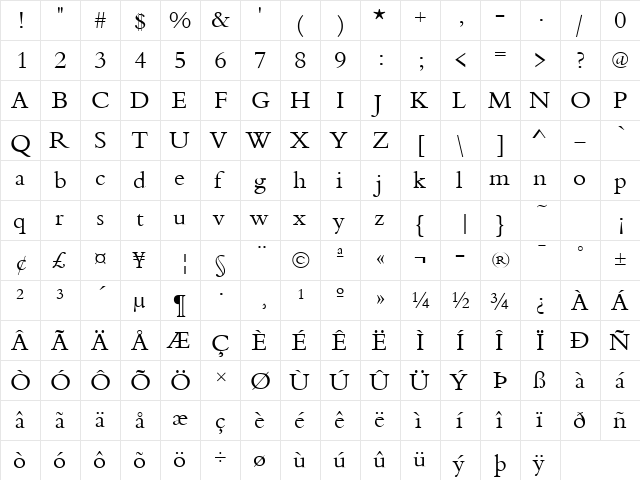
Bergamo Regular
Design Context for Bergamo Typeface
Bergamo takes a measured approach to typography — its balanced proportions and neutral character make it a reliable workhorse for both digital and print work.